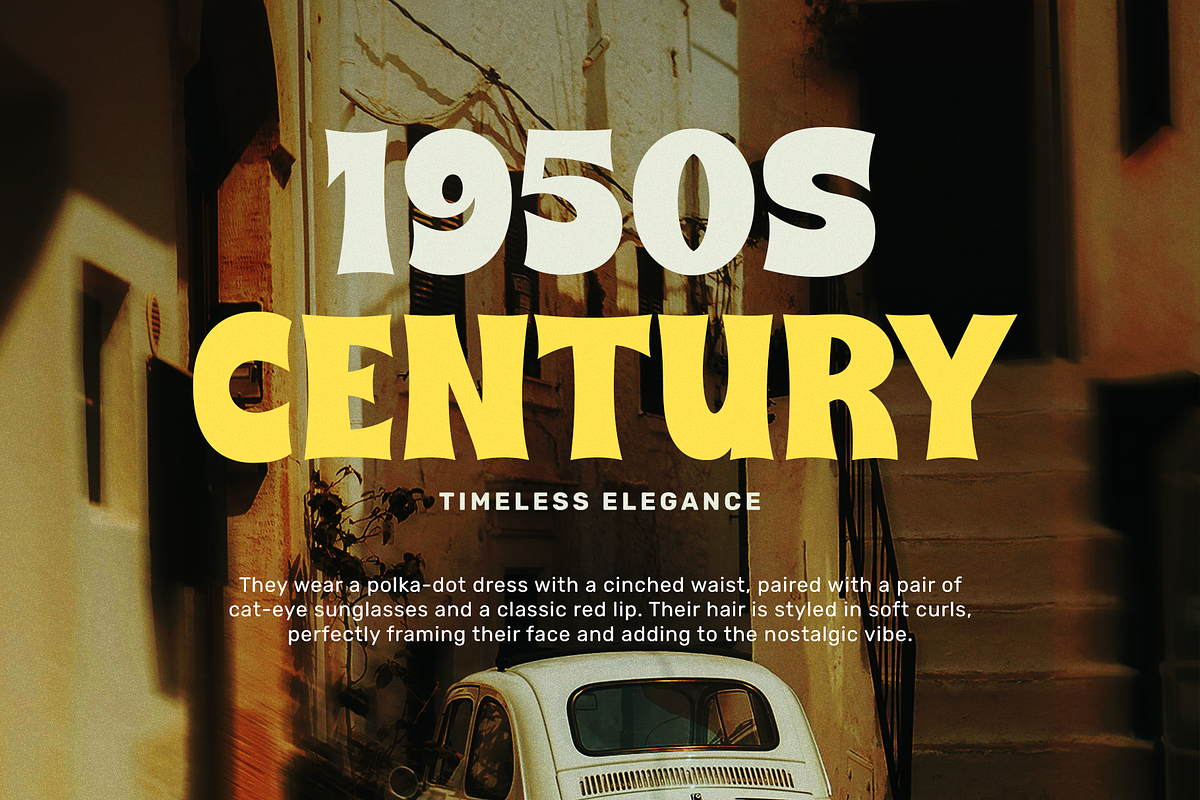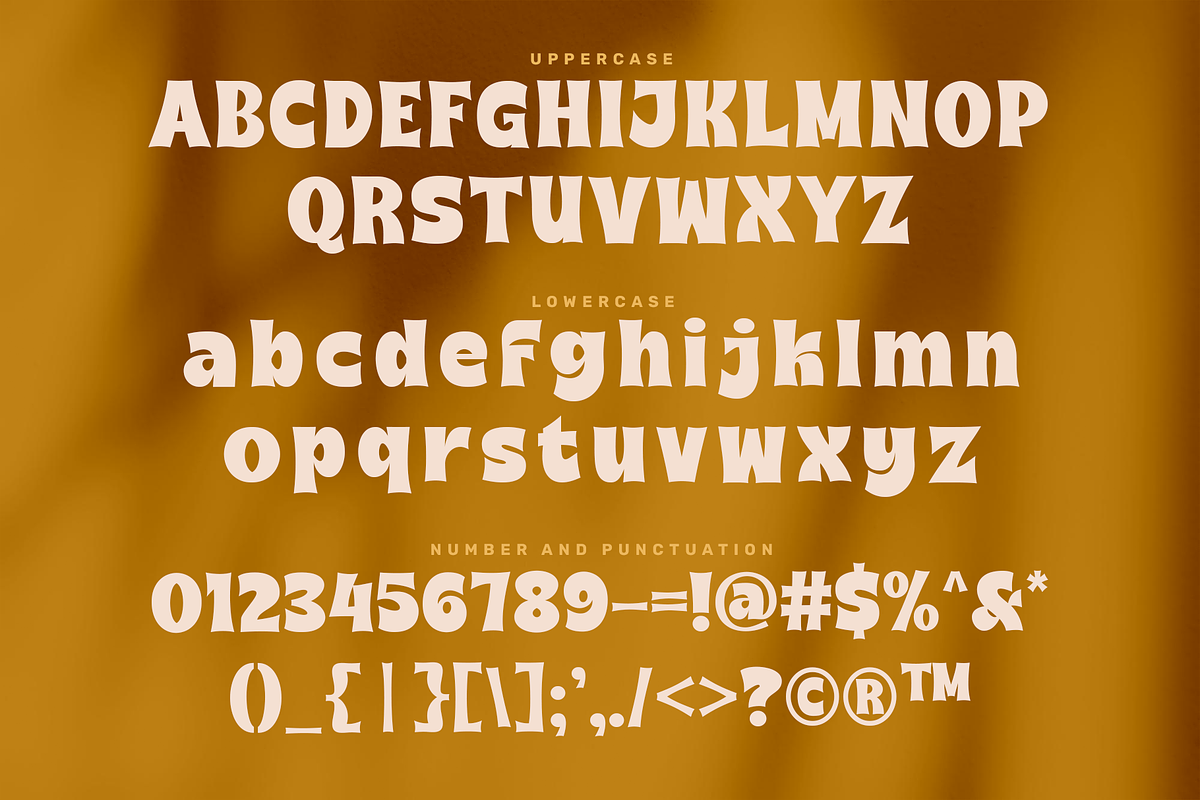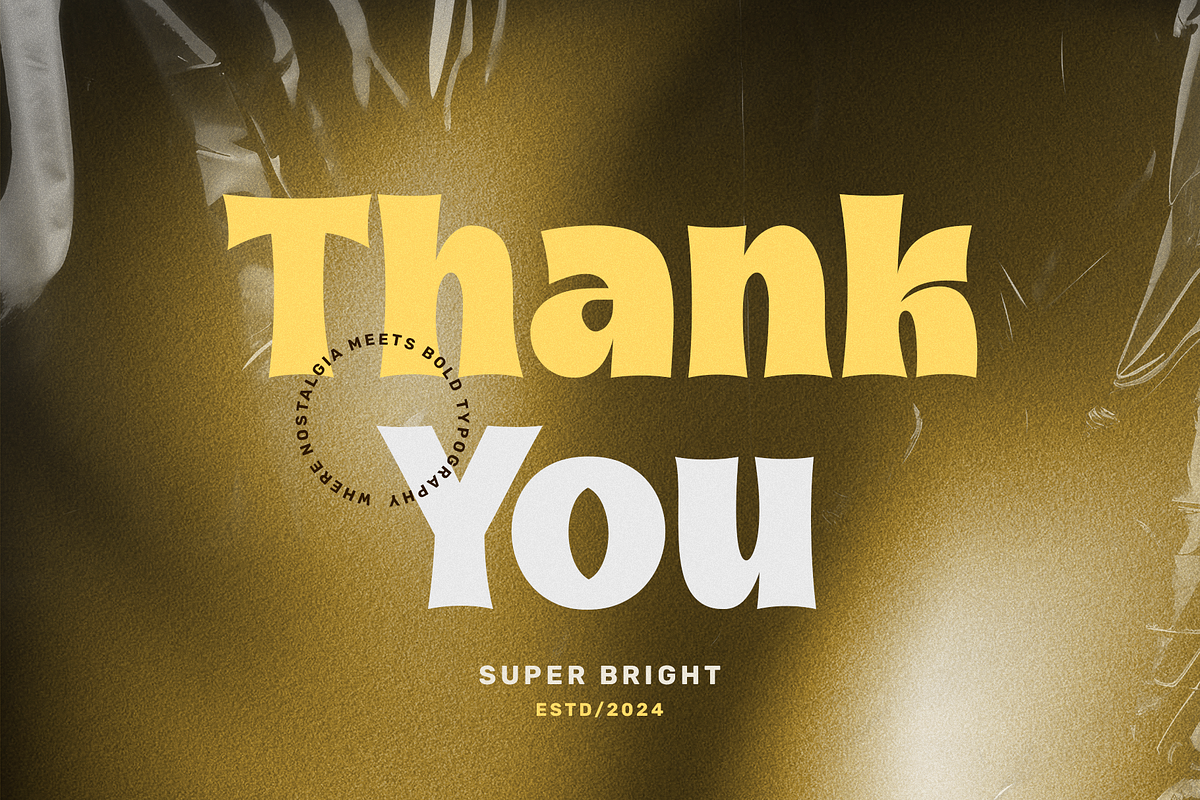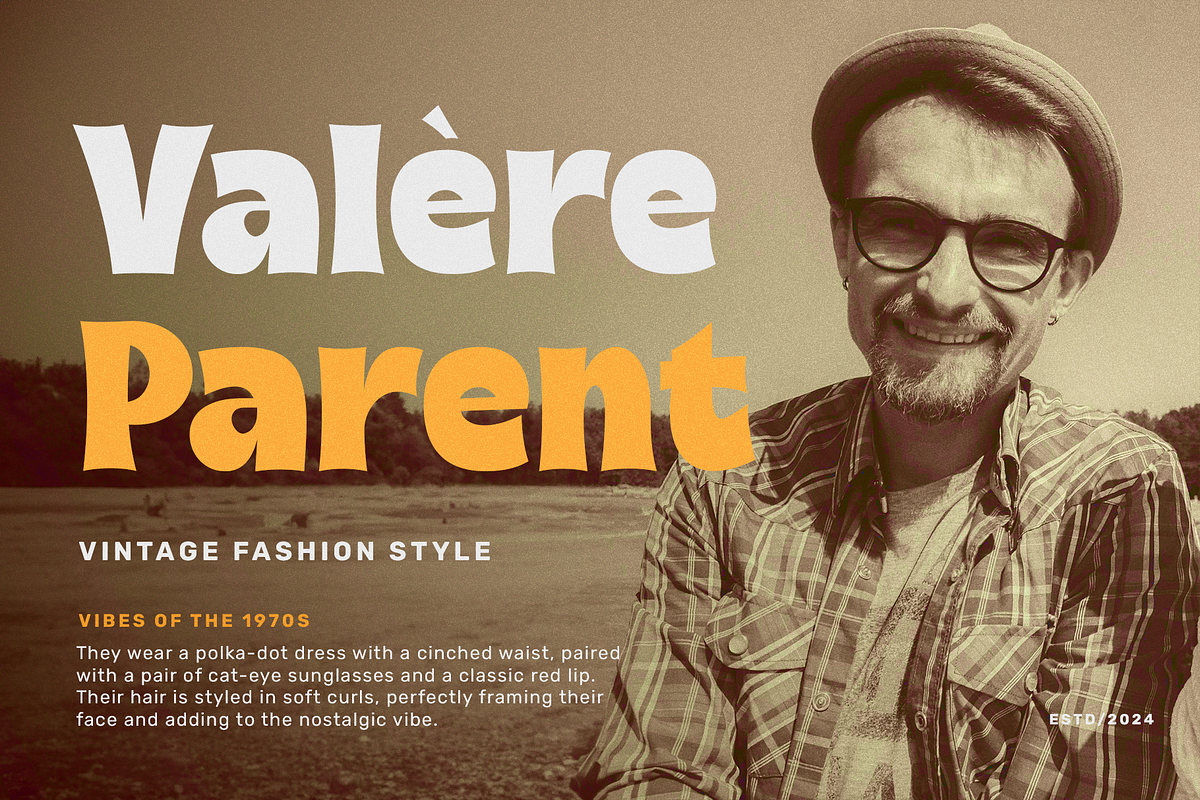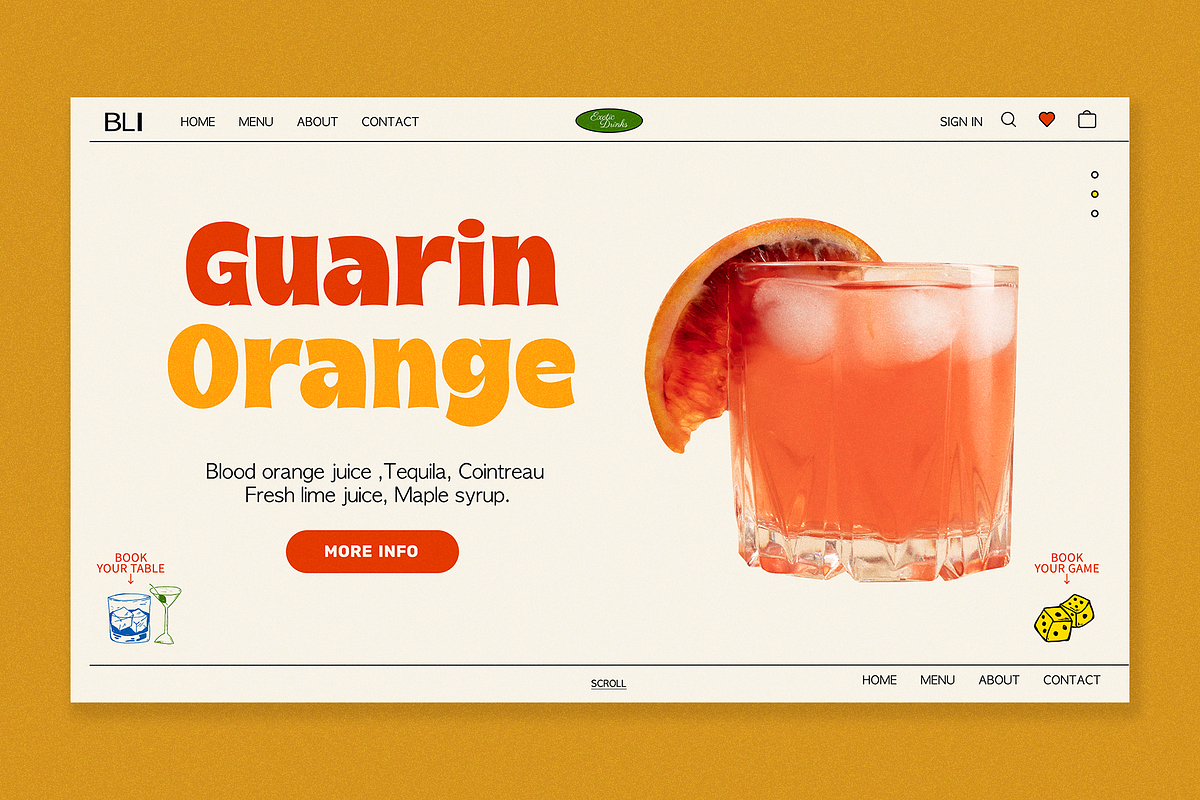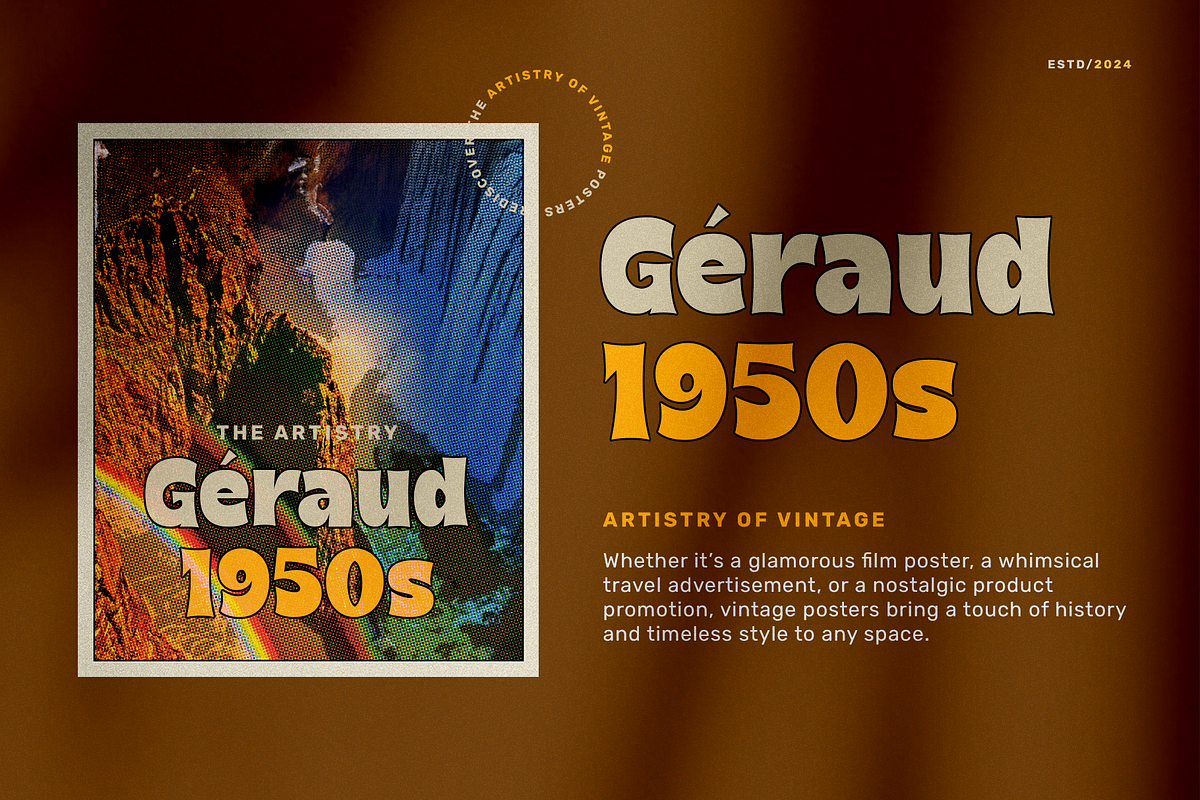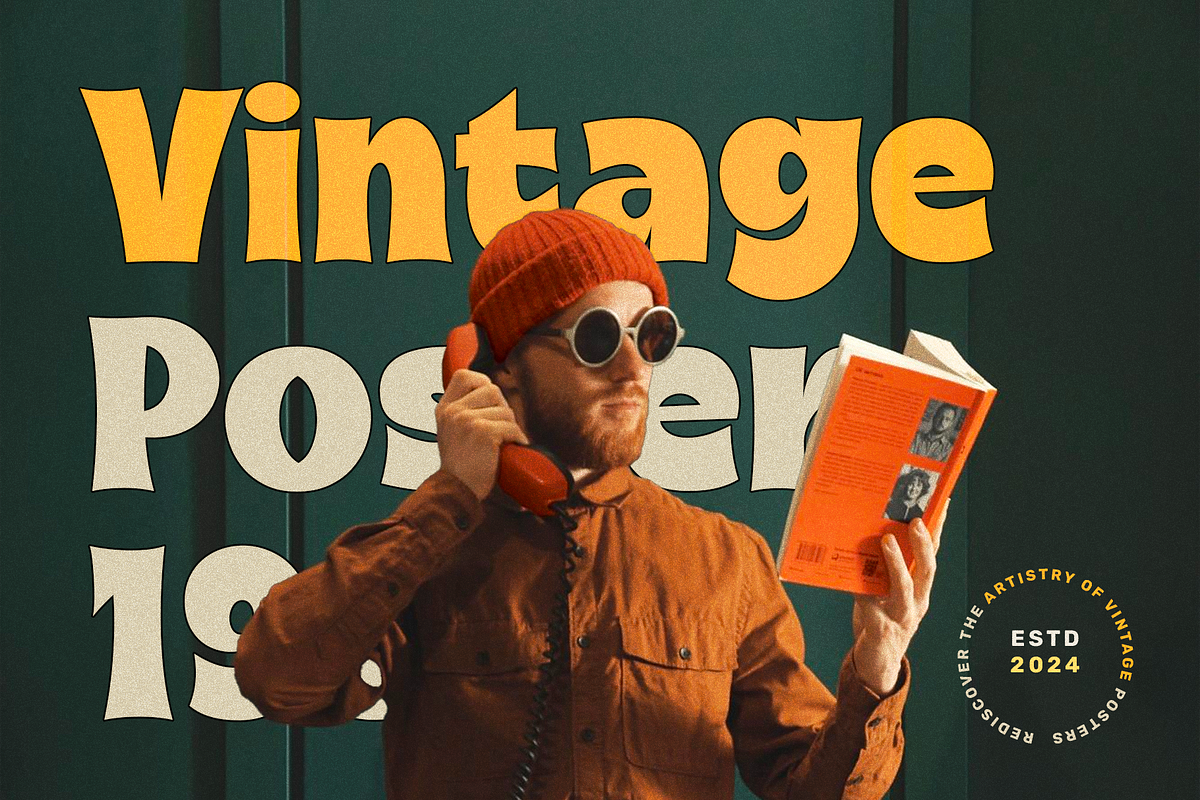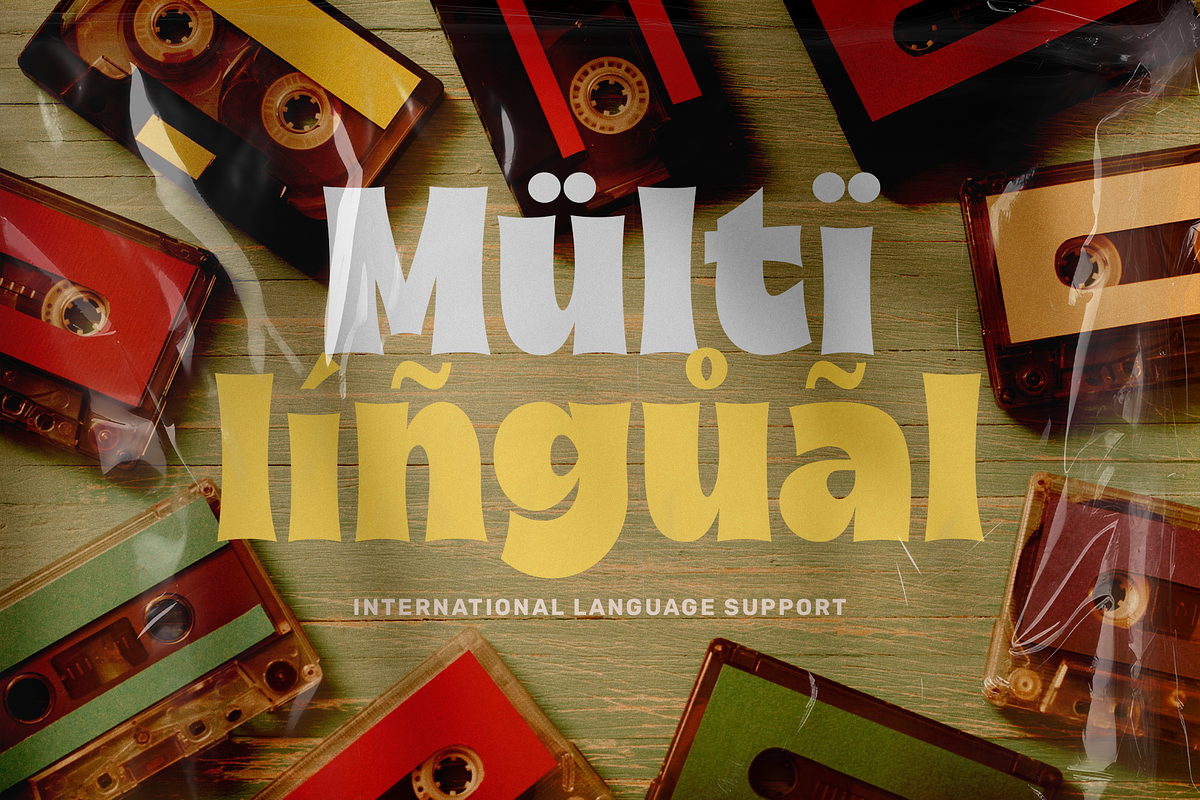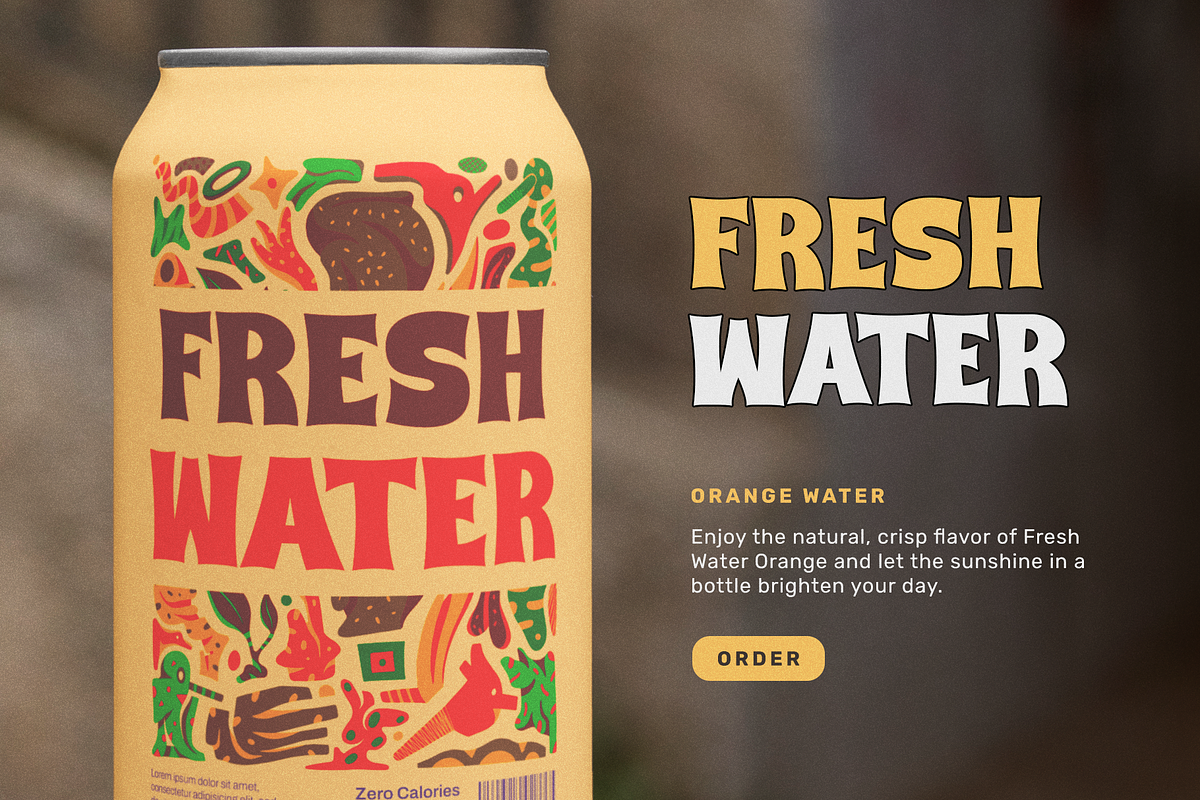
Super Bright - Classic Display Font
Super Bright: A Boldly Classic Display Font
Super Bright is more than just a name - it's a statement. This display font brings a touch of timeless boldness to your designs. Inspired by classic styles, Super Bright boasts thick, confident letterforms that guarantee to grab attention.